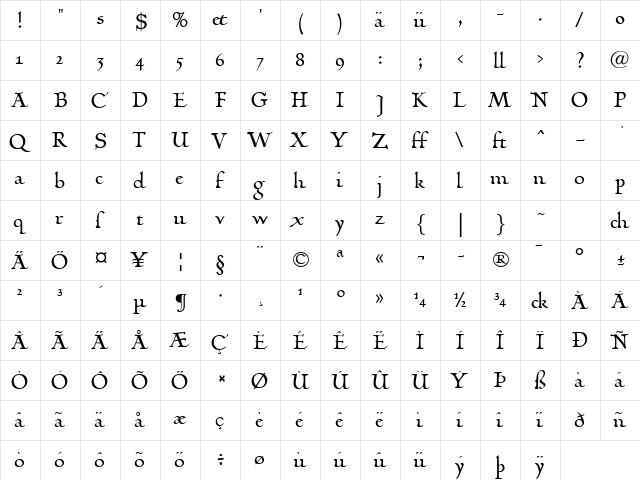
LTHumanistika DFR Regular
Design Context for LTHumanistika DFR Typeface
LTHumanistika DFR is a composed and adaptable typeface that performs quietly and consistently across a wide range of design contexts.